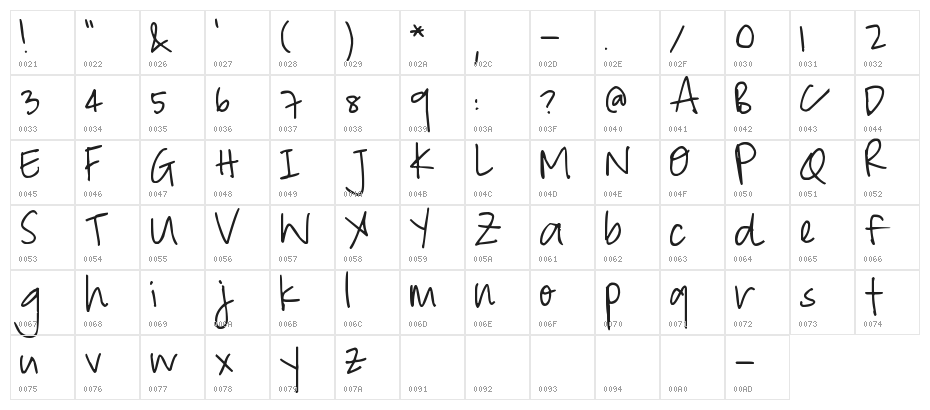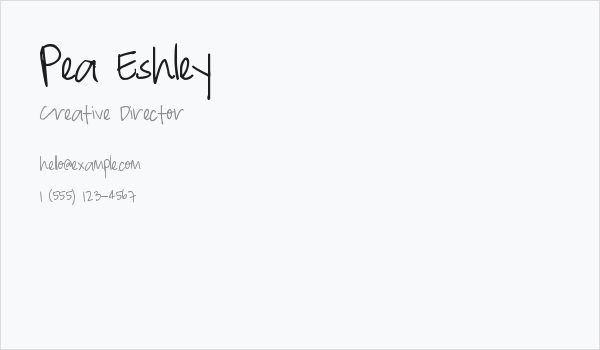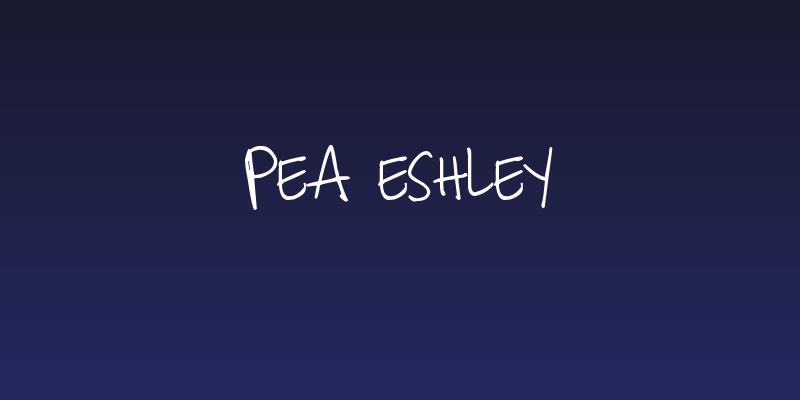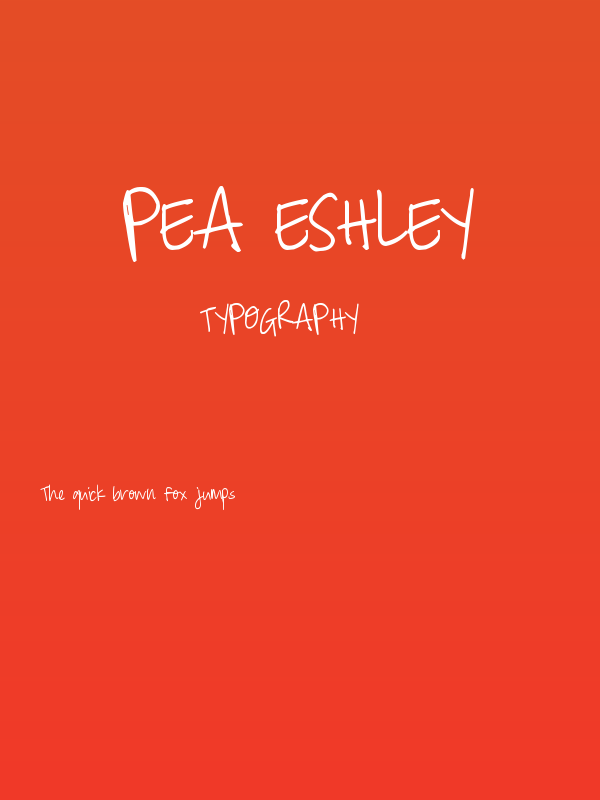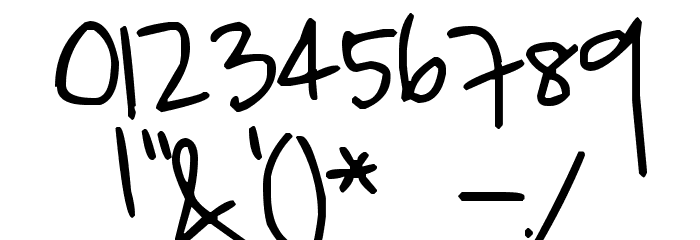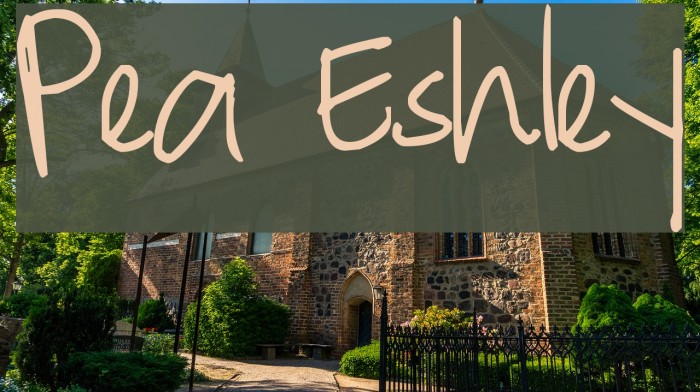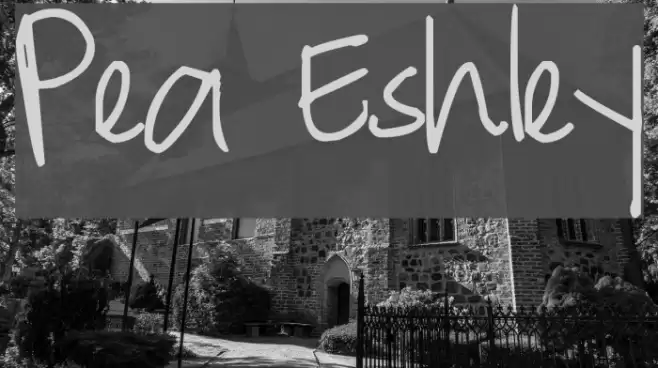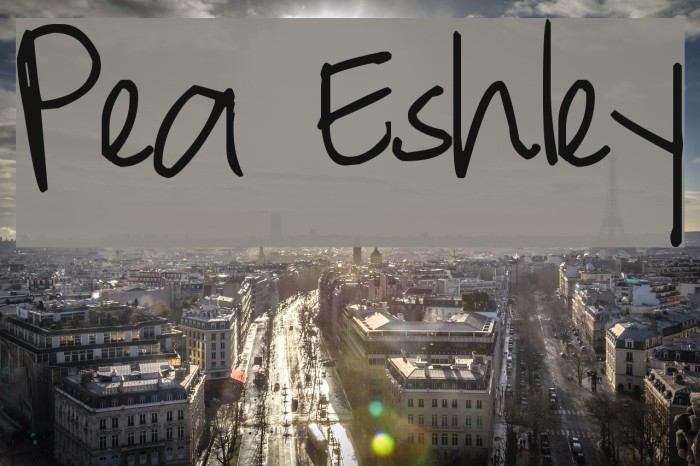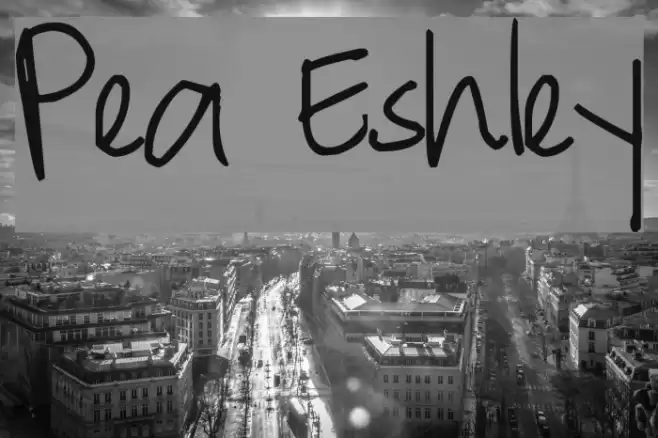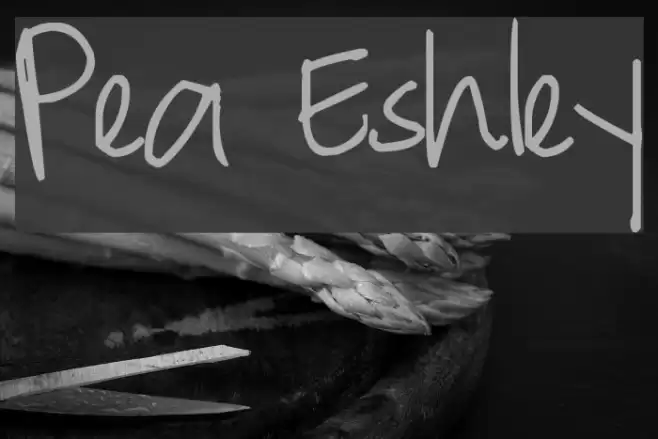
Pea Eshley Font
This font exhibits a playful and casual handwritten style, characterized by its irregular and spontaneous strokes. The letters are slightly slanted, giving it a dynamic and informal appearance. The uppercase and lowercase letters maintain a consistent flow, with rounded edges and varying stroke thickness that adds to its charm. The numbers and special characters follow the same whimsical style, making it suitable for projects that require a personal touch. The overall look is approachable and friendly, ideal for conveying warmth and creativity.